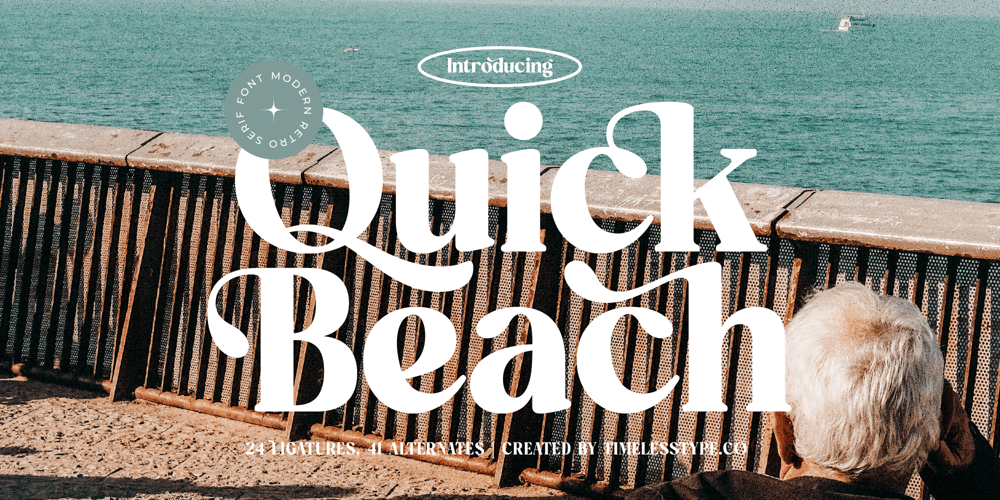
Quick Beach Font Family was designed by Heru Utama Putra and published by Timelesstype Studio. Quick Beach contains 2 styles and family package options. Quick Beach – Modern Retro Serif Font , from Timelesstype , Suitable for any projects such as: logos, branding projects, homeware designs, product packaging, mugs, quotes, posters, shopping bags, t-shirts, book covers, name card, invitation cards, greeting cards, label, photography, watermark, special events, and all your other luxury and beautiful projects that need a Luxury Serif taste.